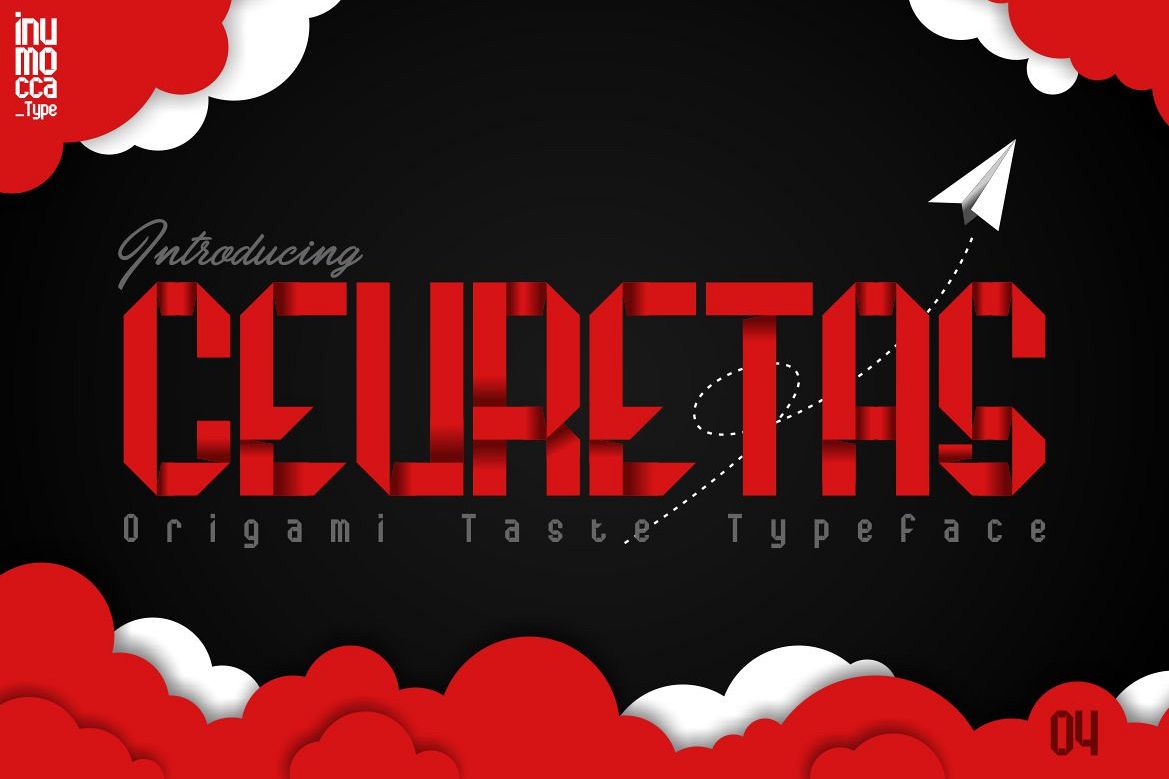
CEURETAS
CEURETAS inspiration from origami, its full touch like you folding paper, with unique glyph. its realy easy to used and need deep sence of your art, compositing, layout, choose your color.CEURETAS playfull will look so good on your poster, invitation, sticker or just for fun projects you are working on
• Unique glyphs
• Multilingual Characters
• UPPERCASE
• Numeric
• Symbol
• Punctuation Character